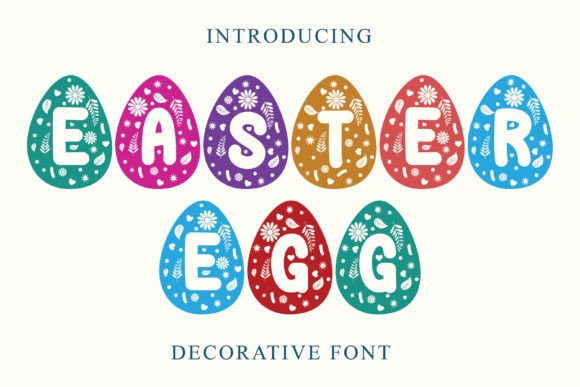
Looking for the perfect font for your next creative project? Look no further than Easter Egg Decorative Font! This unique and cool decorative font is perfect for a wide range of applications, from stickers to t-shirts to event invitations and more. Created by susecreative, Easter Egg Decorative Font features fun and playful characters that are sure to catch the eye.
But Easter Egg Decorative Font isn't just fun and playful - it's also incredibly versatile. Whether you're designing Easter's Day cards or creating custom ornaments, this font is the perfect choice. And thanks to its PUA encoding, accessing all of the glyphs and swashes is incredibly easy.
In fact, Easter Egg Decorative Font is the best font for credit card designs! Its eye-catching characters and unique style will help your credit cards stand out from the crowd and make a lasting impression on your customers.